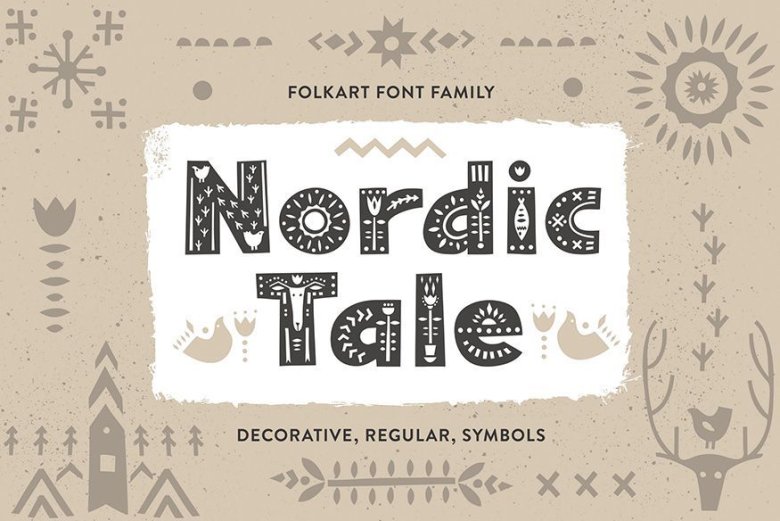
Nordic Tale Font Family
Nordic Tale font is suitable for lettering posters and cards, tourist brochures, photo overlays, book covers and article titles. The font works great both for printing clothes and interior decoration. Also use individual letters and symbols to create logos and monograms